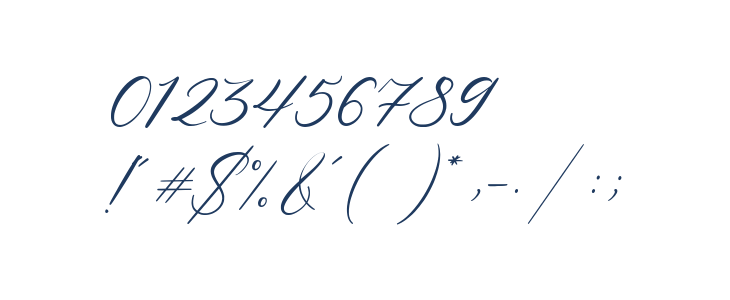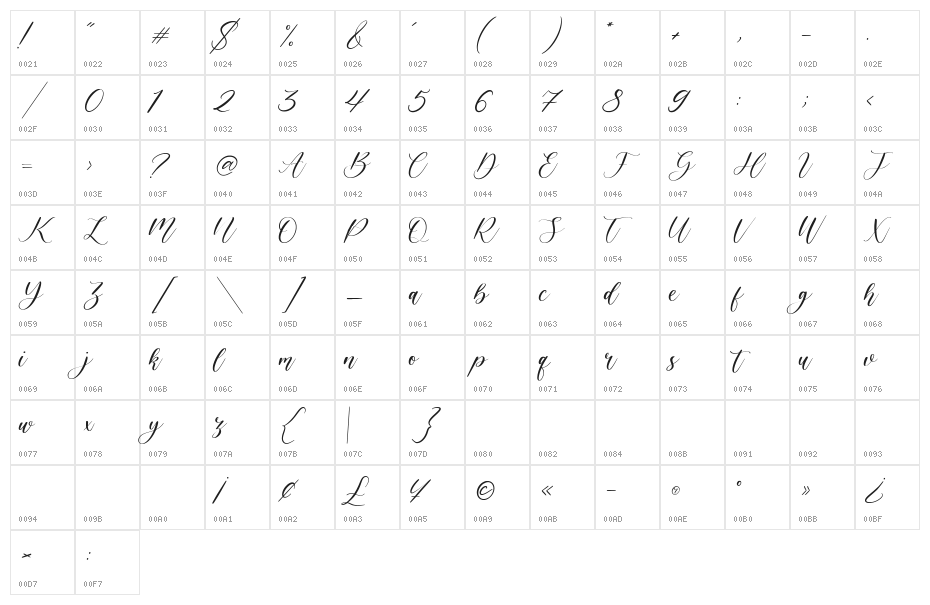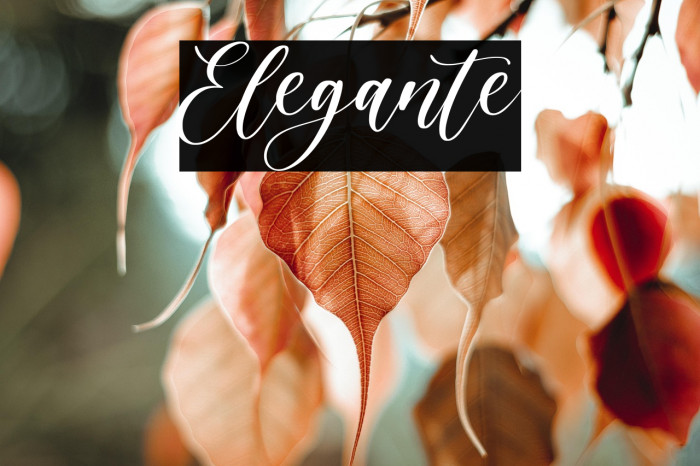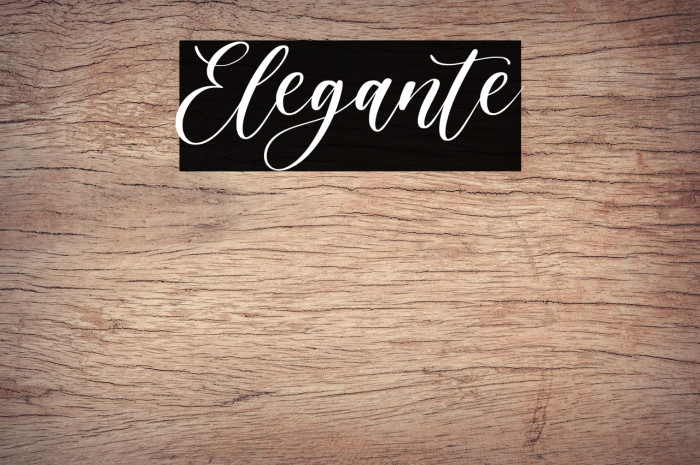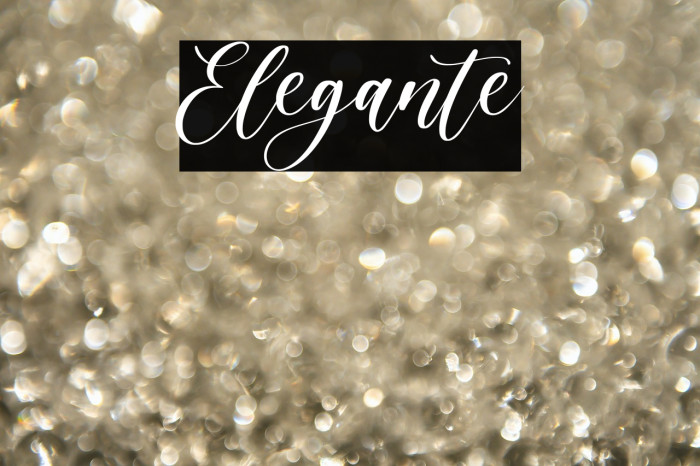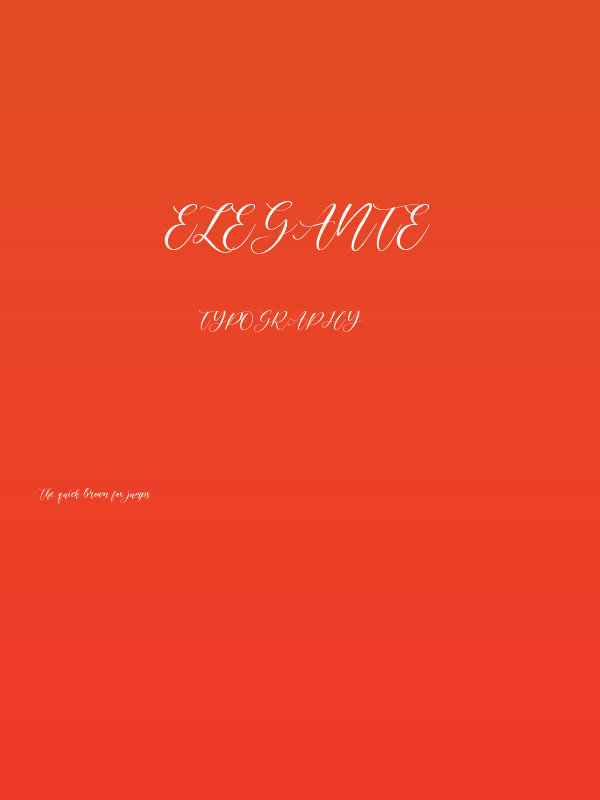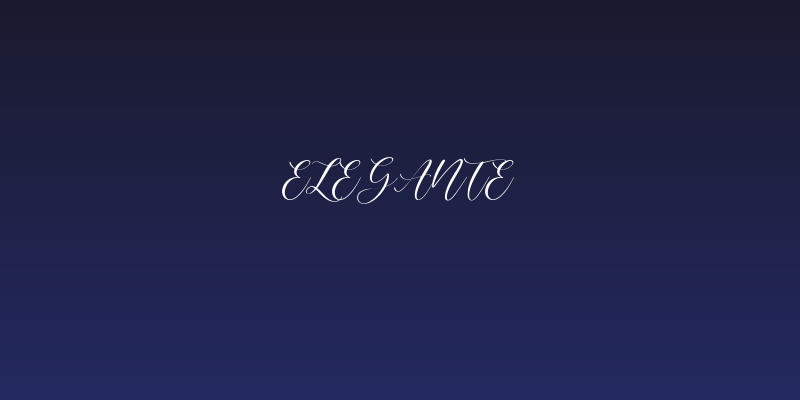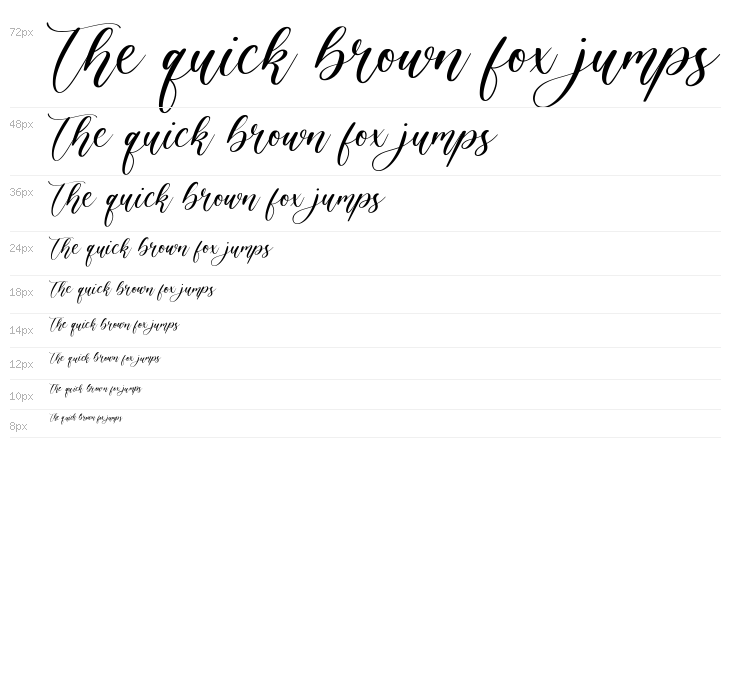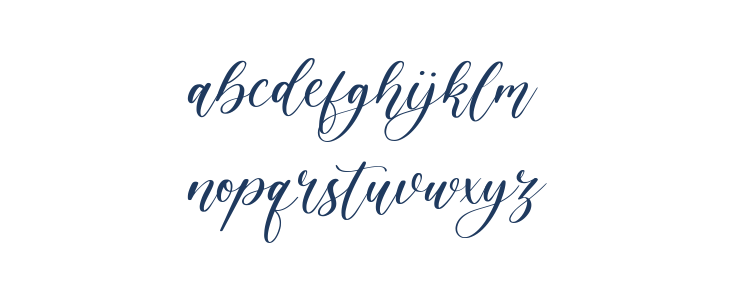
Elegante Font
Elegante Description
This elegant script font features flowing, cursive letterforms with a sophisticated and graceful appearance. The uppercase letters are characterized by their sweeping curves and intricate loops, while the lowercase letters maintain a consistent fluidity and charm. The numerals are stylish and complement the overall design, adding a touch of refinement. The special characters are thoughtfully crafted, enhancing the font's versatility. This font exudes a sense of luxury and is perfect for projects that require a touch of elegance and class.